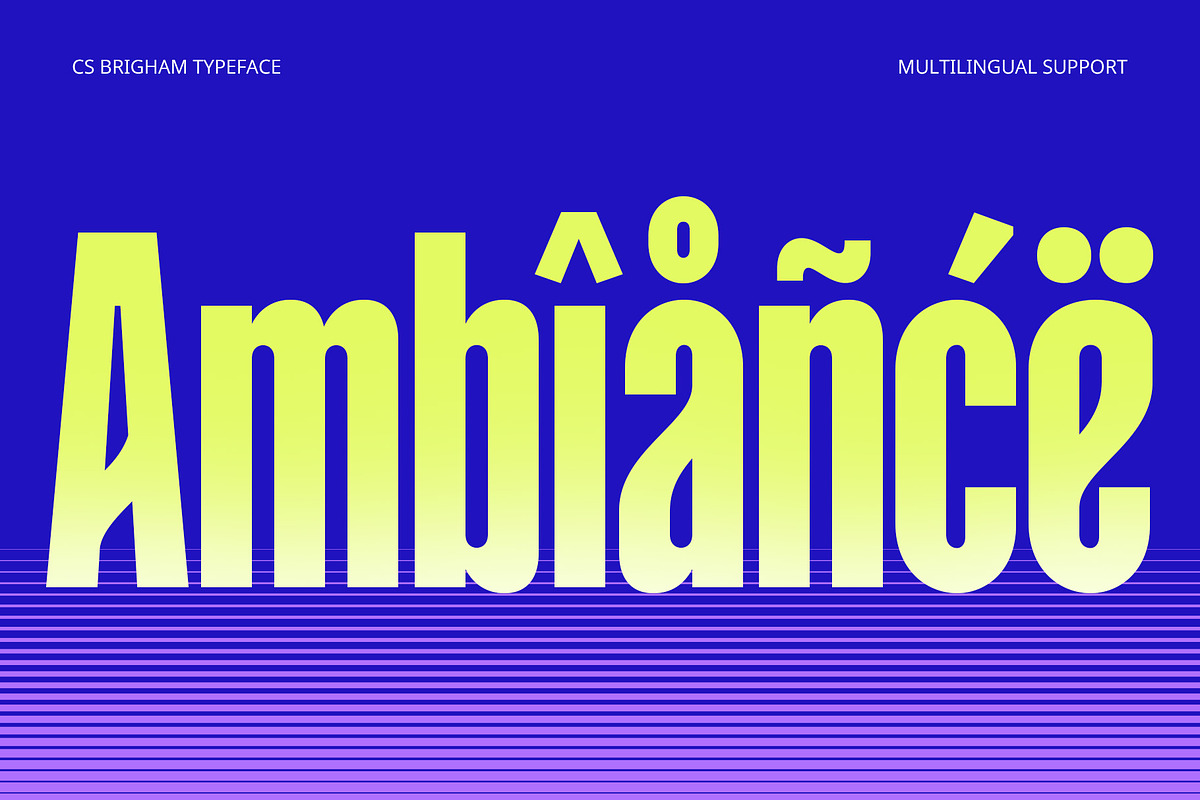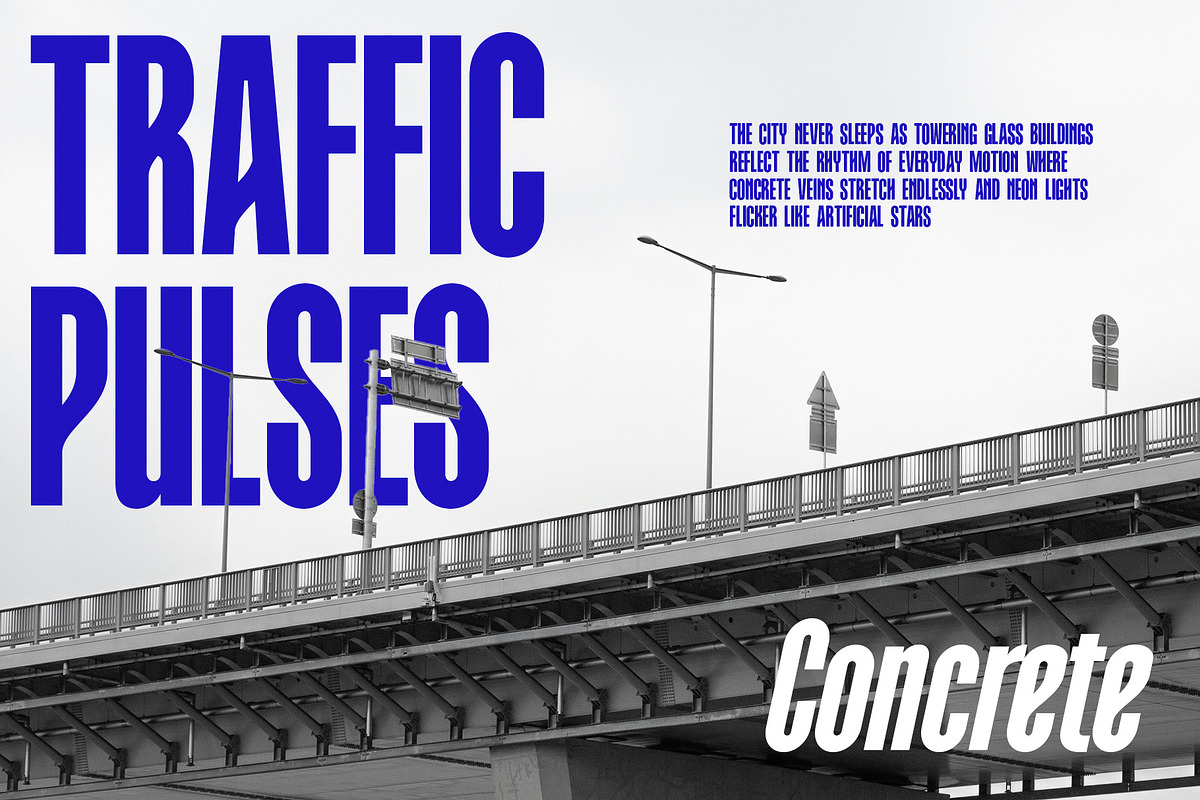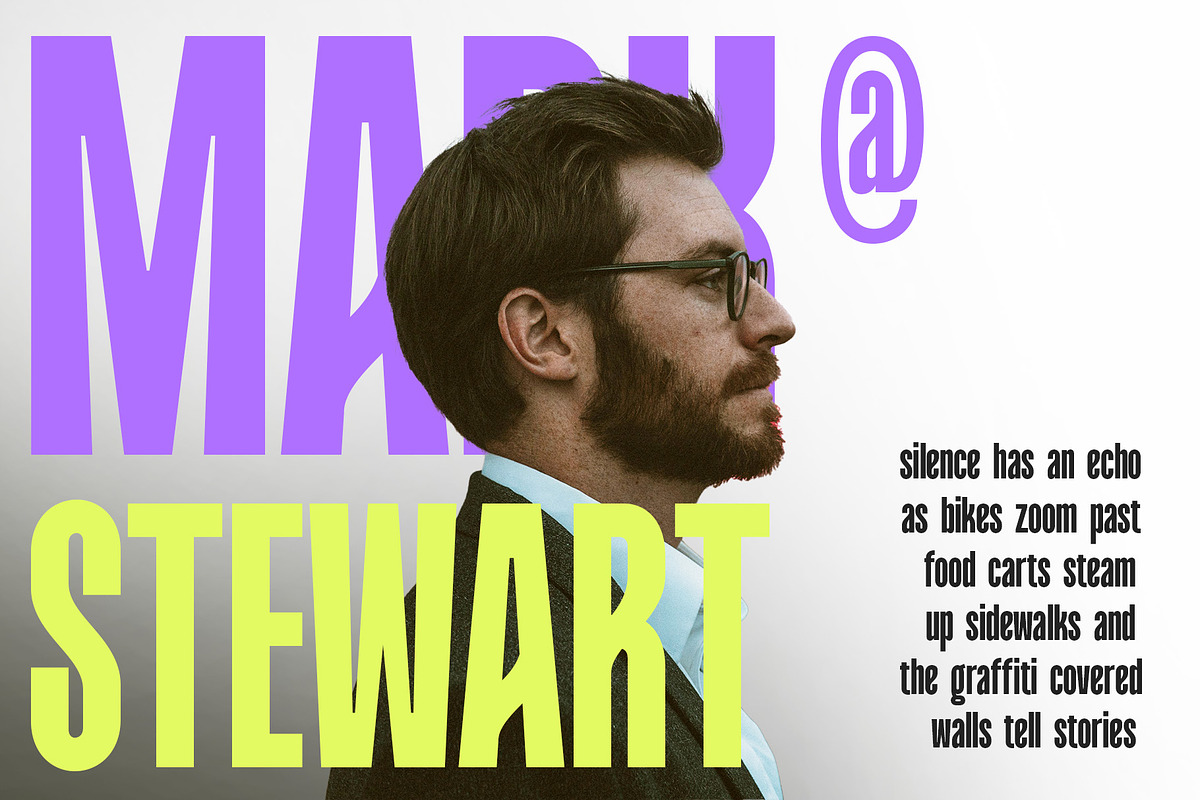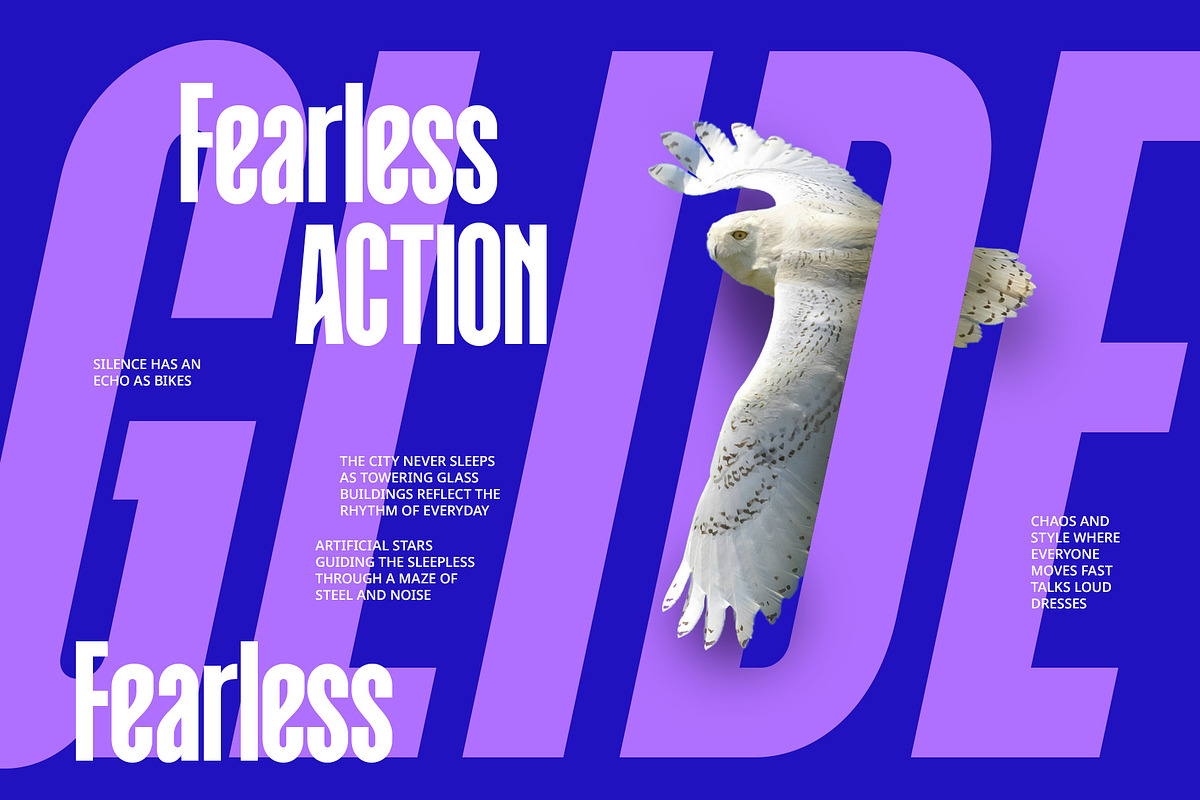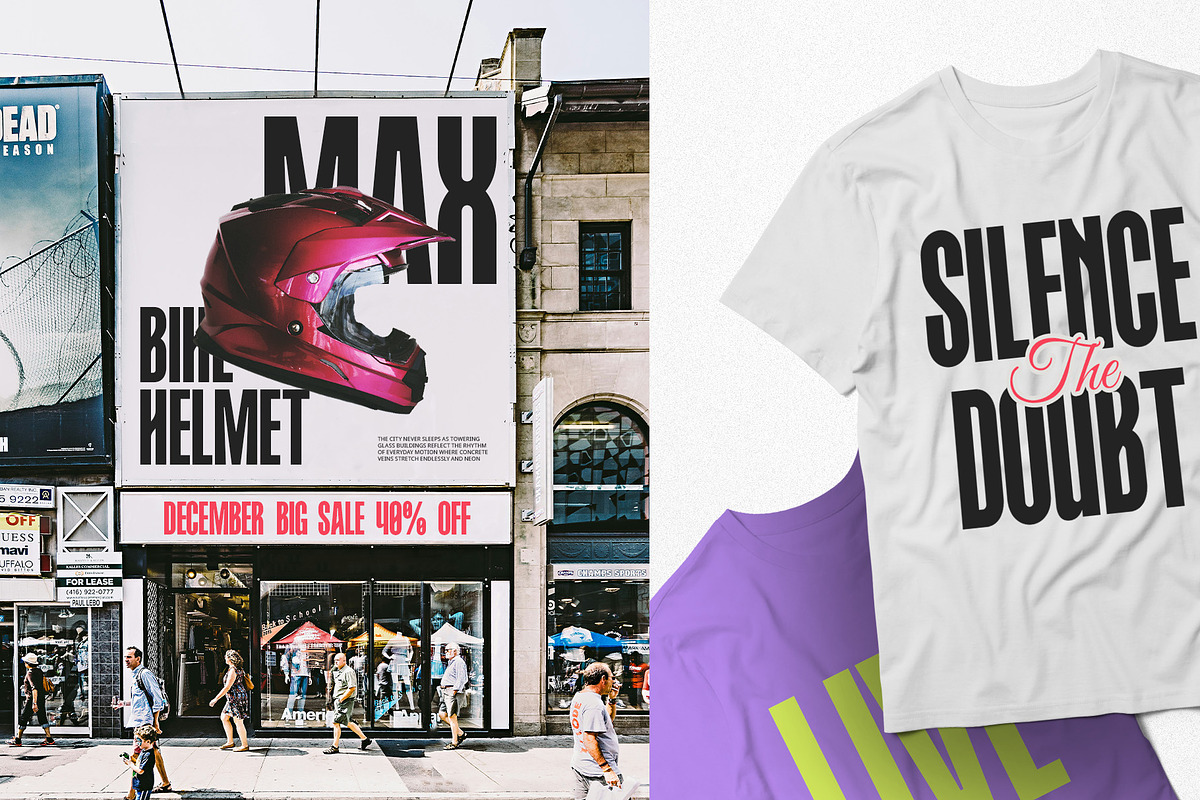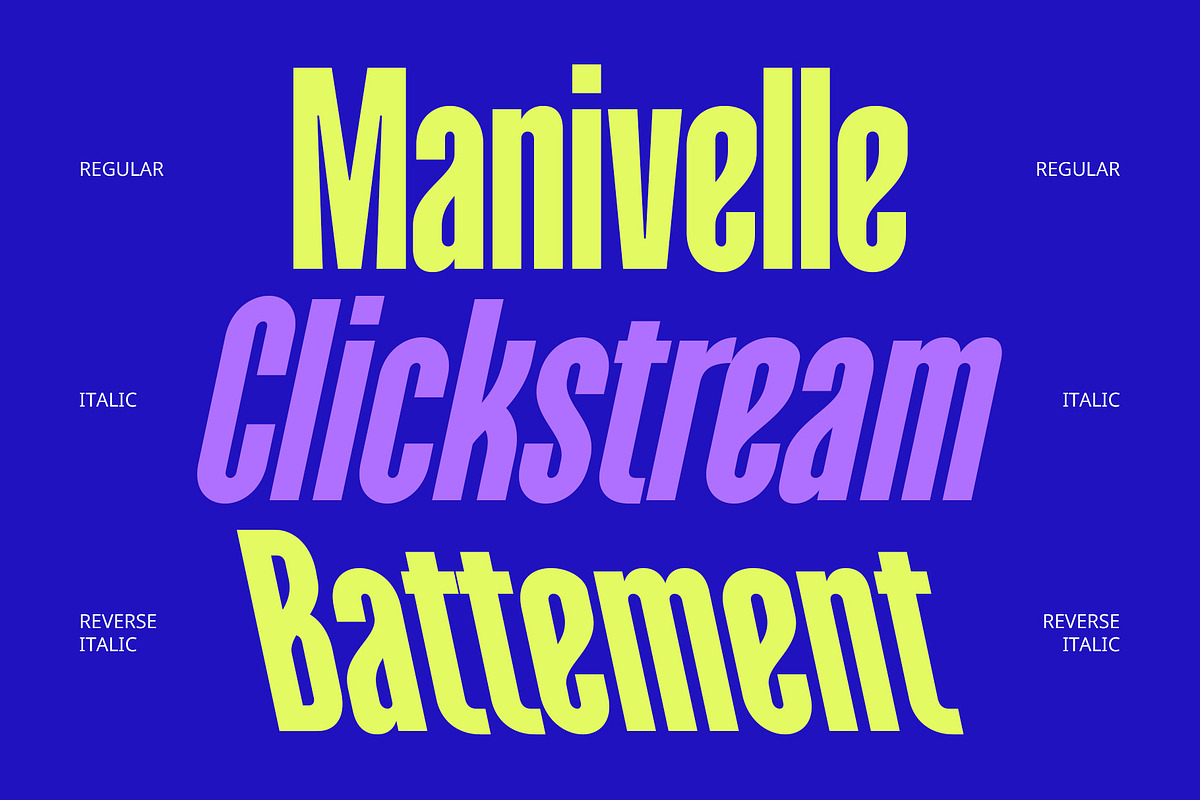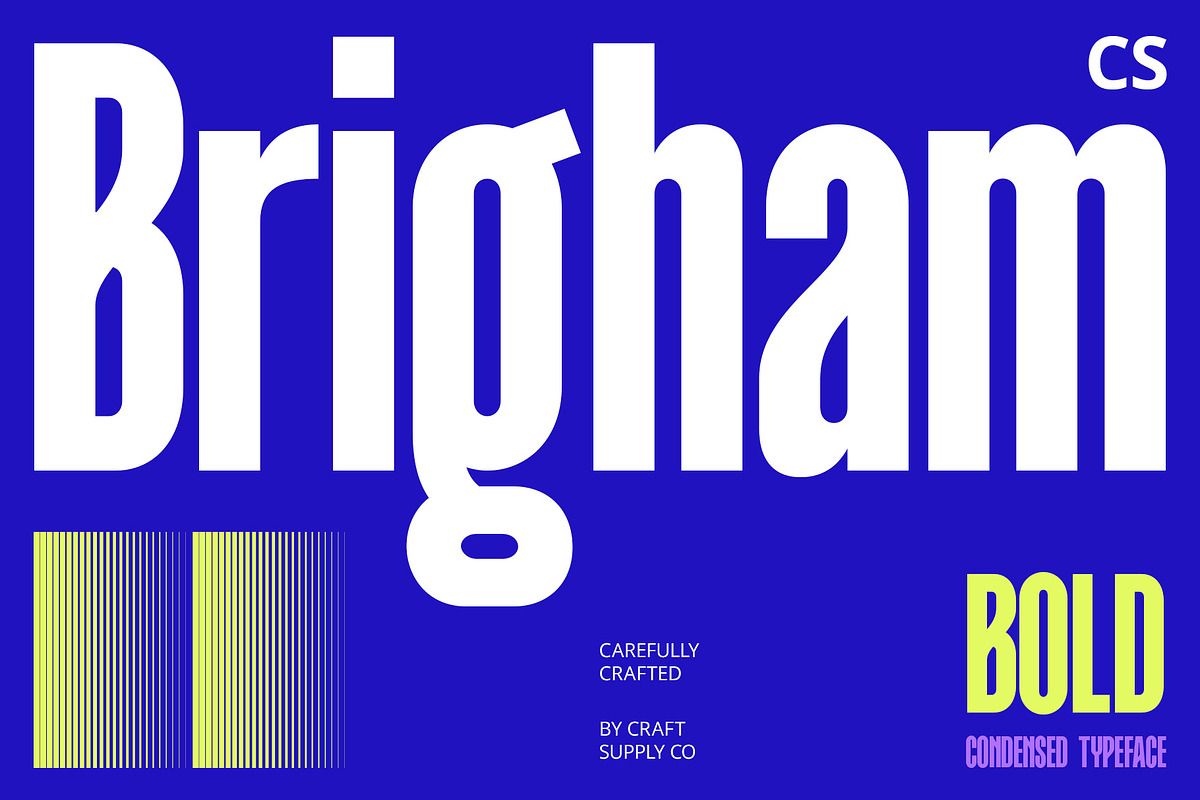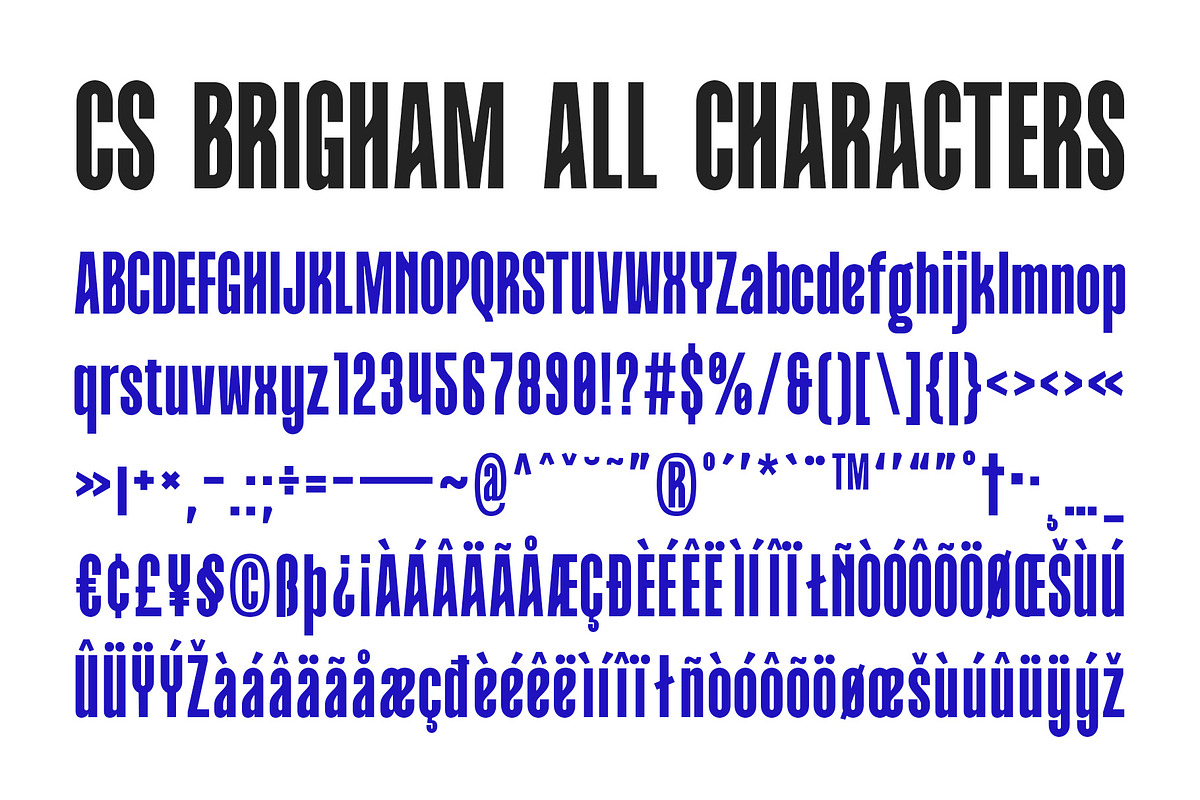
CS Brigham – Bold Font
CS Brigham Font – Bold Simplicity with Modern Strength
Clean, Condensed Structure for Maximum Impact CS Brigham is a modern sans serif font featuring bold, tightly constructed letterforms that make a strong and immediate impression. Its condensed shape maximizes space efficiency while maintaining visual clarity, making it ideal for headlines, titles, and high-impact layouts where every inch counts.
Bold and Minimalist with a Professional Tone Designed for clarity and confidence, CS Brigham balances a sleek, contemporary feel with assertive weight. Its slim yet powerful strokes communicate professionalism and purpose, offering a clean visual identity that works across branding, corporate design, and editorial content.
High Readability for Versatile Applications Despite its compact design, CS Brigham maintains excellent legibility in both print and digital formats. This makes it highly adaptable for a range of uses—whether on posters, websites, product packaging, or social media graphics, its readability ensures your message is delivered with precision.
Perfect for Modern Branding and Visual Communication Ideal for brands and creatives seeking a minimalist yet impactful typographic voice, CS Brigham provides a powerful foundation for clean, modern aesthetics. Its bold form, professional tone, and efficient structure make it a go-to choice for designs that value simplicity, strength, and style.
- CS Brigham Regular
- CS Brigham Italic
- CS Brigham Reverse Italic